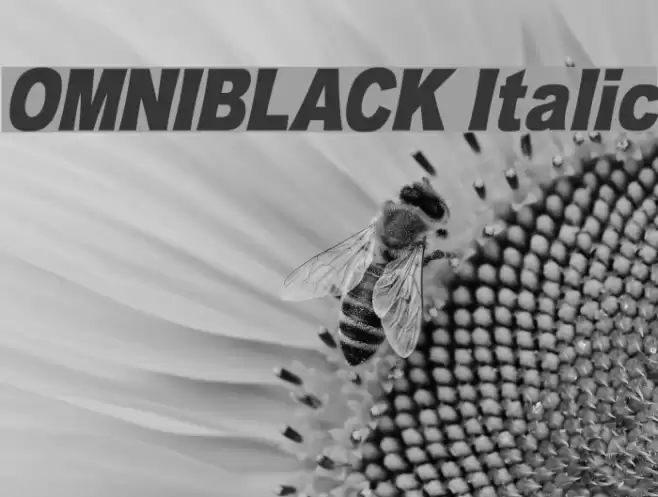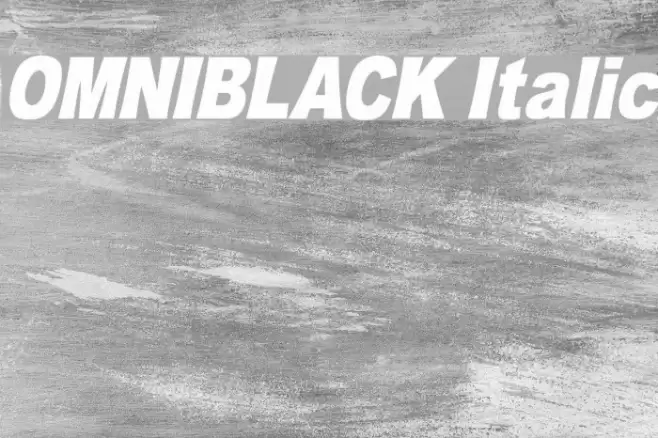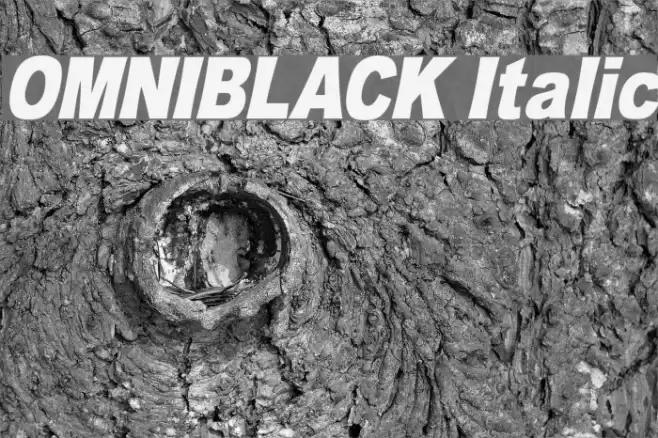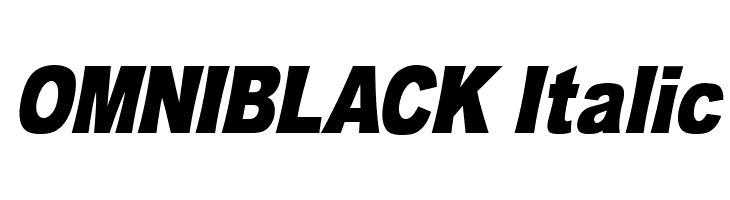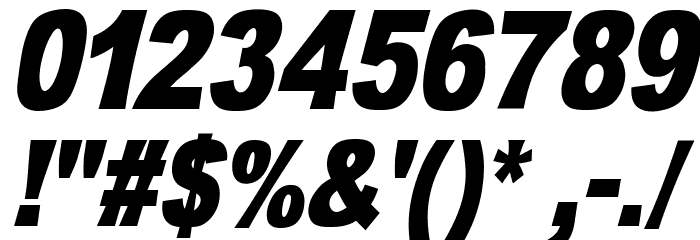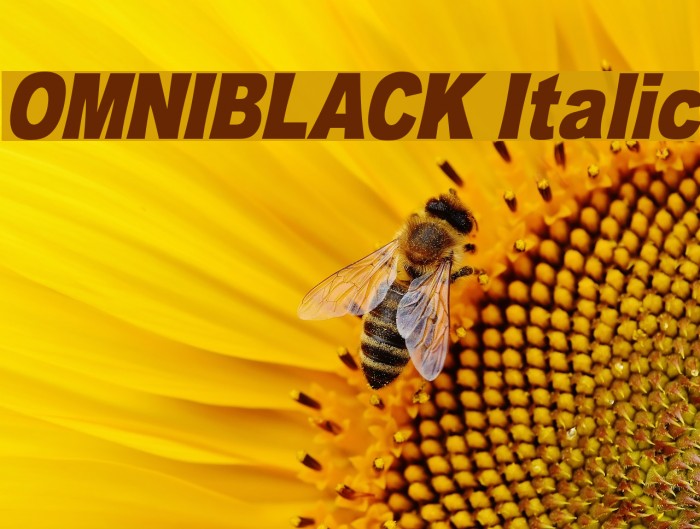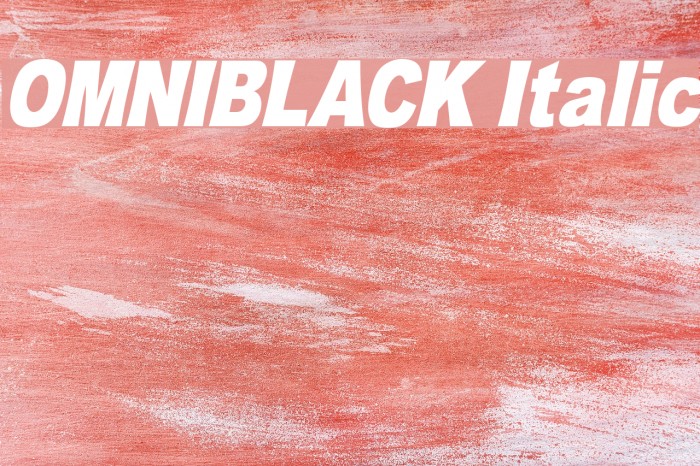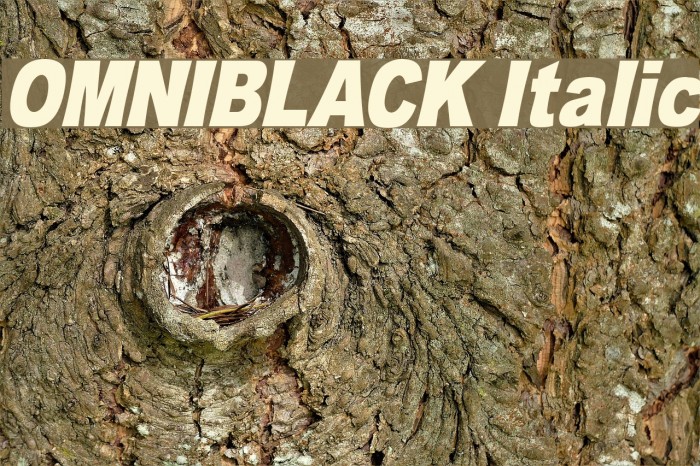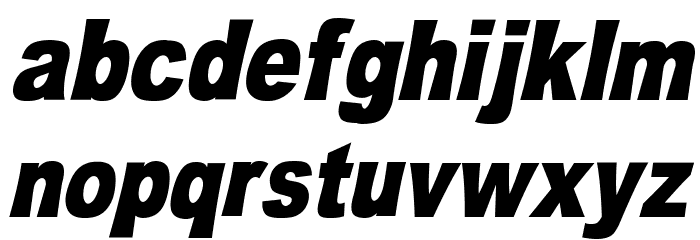
OMNIBLACK Italic Font
OMNIBLACK Italic Description
This font exhibits a bold and dynamic presence with its italicized style, creating a sense of movement and urgency. The characters are robust and thick, providing a strong visual impact. The uppercase and lowercase letters are consistent in their slant, maintaining a cohesive look throughout. The numbers and special characters follow the same bold and italicized design, ensuring uniformity. This font's heavy weight and italic style make it ideal for attention-grabbing headlines or impactful logos. Its design is modern and assertive, suitable for projects that require a strong and confident typeface.
A bold, italicized font with a strong, dynamic presence from Uncategorized fonts.
- Proposed Projects: Ideal for headlines, branding, advertising, and logo design.